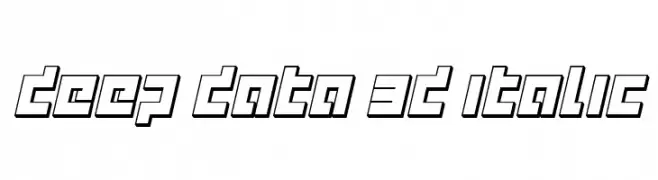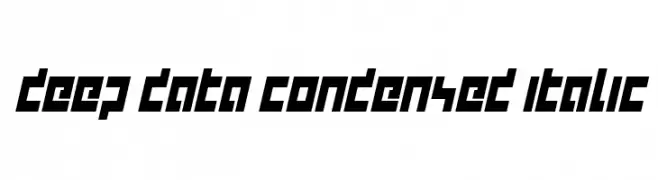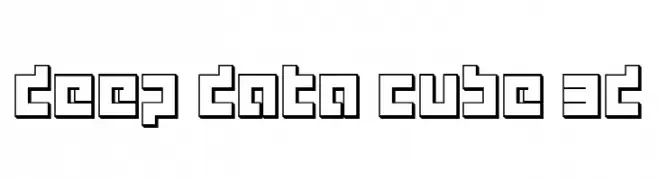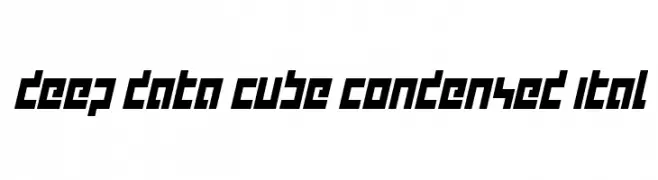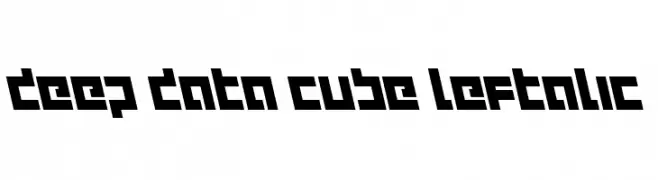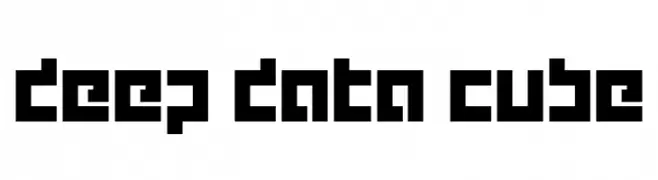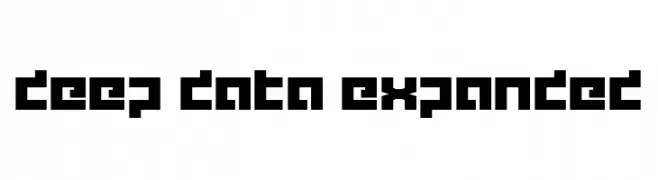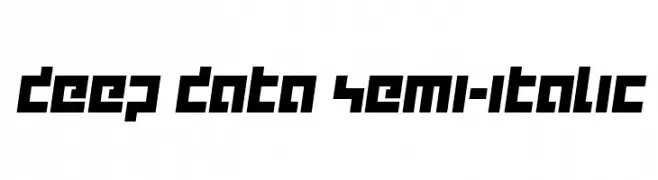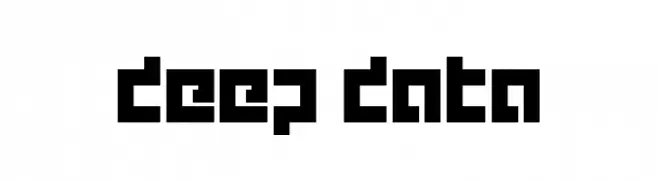
A bold, angular, semi-italic font with a futuristic and geometric style.
A bold, geometric font with a 3D cube-like appearance, ideal for modern and digital themes.
A bold, blocky font with a digital, pixelated style ideal for tech-themed projects.
A bold, angular, and futuristic font with a condensed and geometric style.
A bold, geometric font with a modern, digital aesthetic.
A bold, angular, and condensed italic font with a futuristic style.
A bold, geometric font with a futuristic, angular design.
A bold, geometric font with a modern, digital aesthetic and pixelated appearance.
A bold, 3D italic font with a futuristic and dynamic style.
A bold, geometric font with a 3D effect and outlined characters, perfect for modern and digital themes.